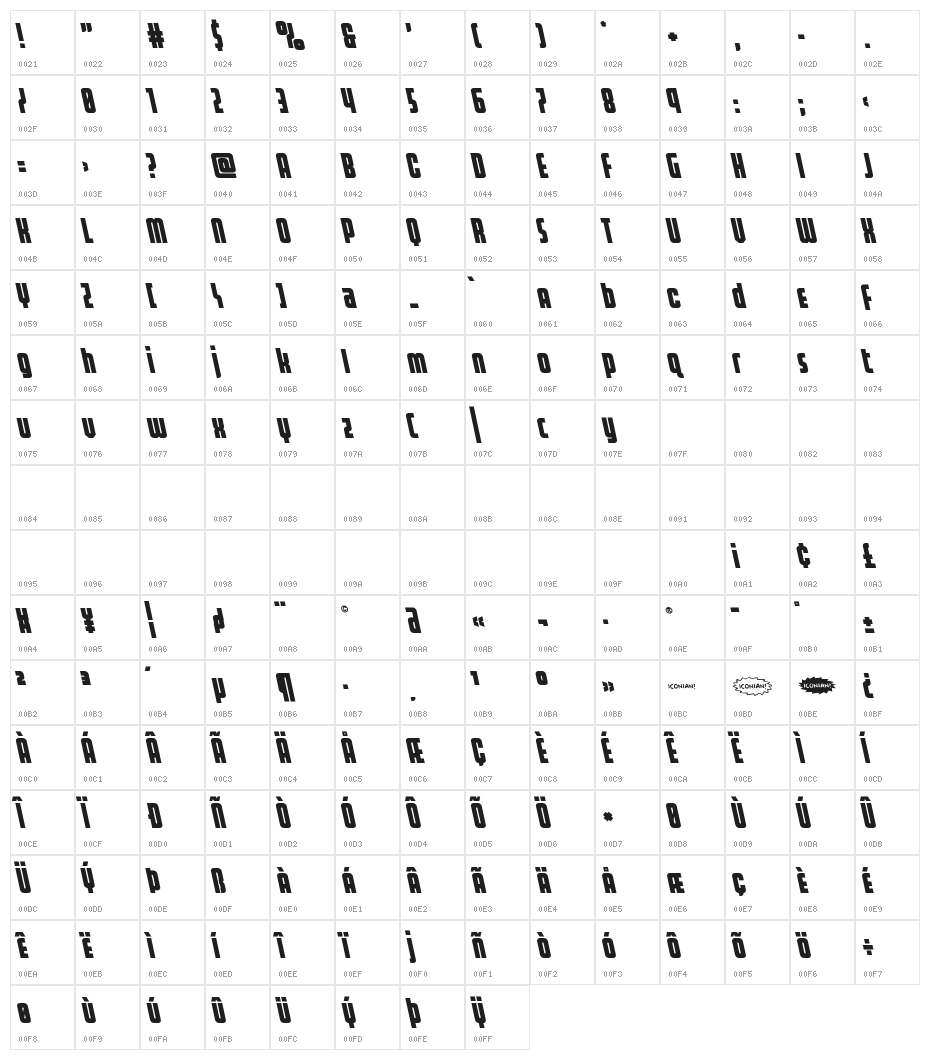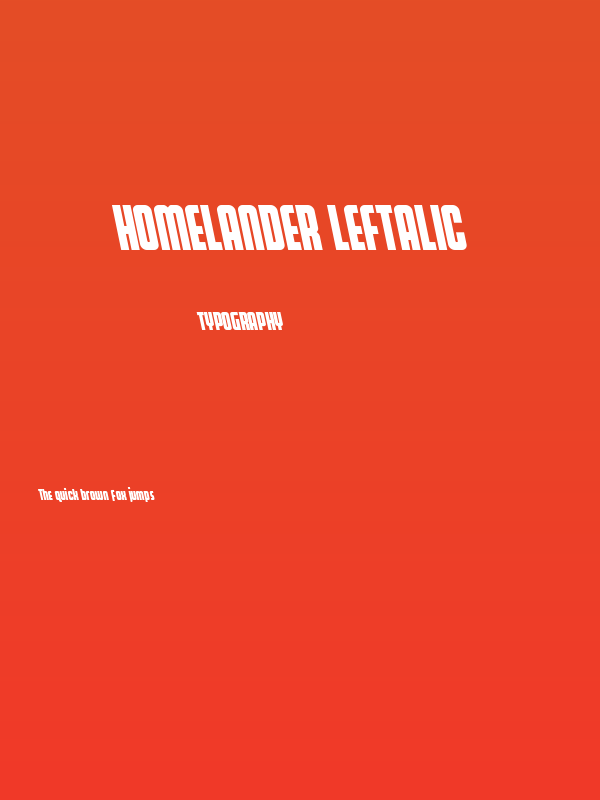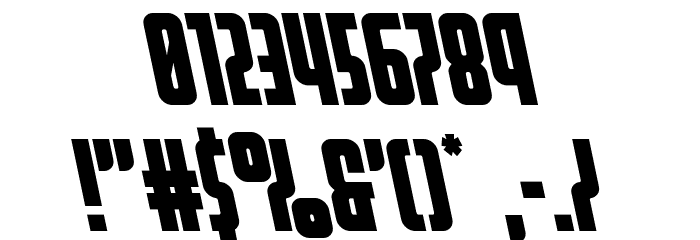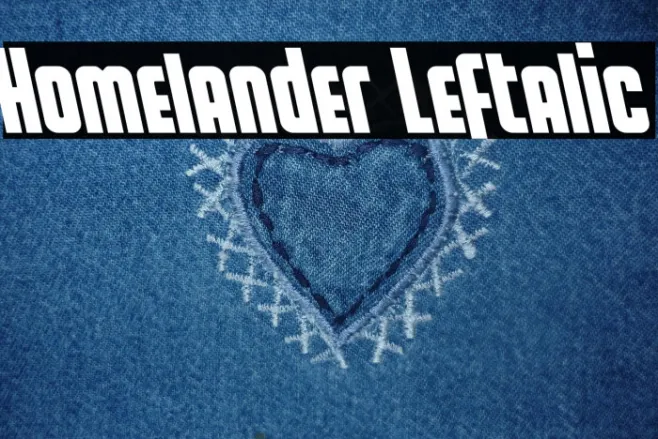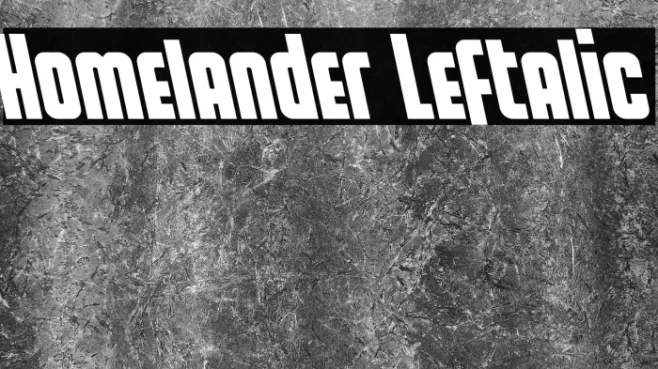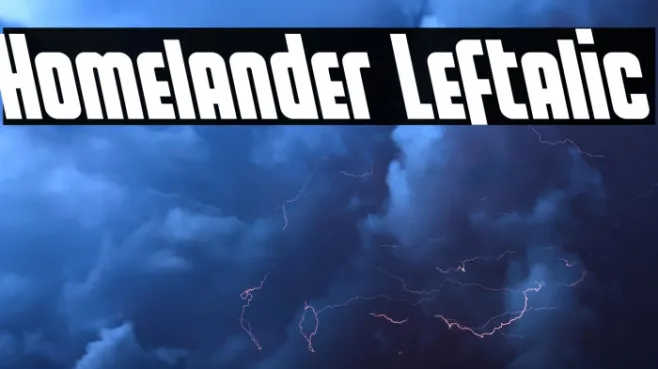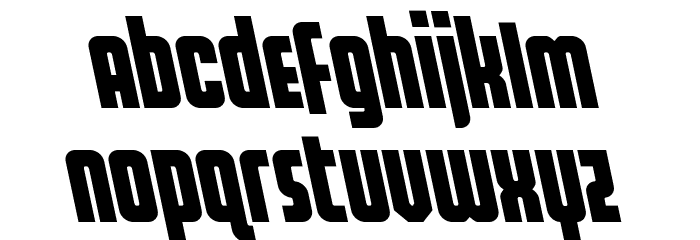
Homelander Leftalic Font
Homelander Leftalic Description
This font features a bold and dynamic design with a distinct leftward slant, giving it a sense of movement and energy. The characters are robust and thick, creating a strong visual impact. The uppercase and lowercase letters maintain a consistent width, contributing to a uniform appearance. The numbers and special characters follow the same bold style, ensuring coherence across all elements. The font's design is modern and assertive, making it suitable for projects that require a strong and confident typeface.
| Proposed Projects | Ideal for sports branding, action movie posters, dynamic advertisements, and bold headlines. |